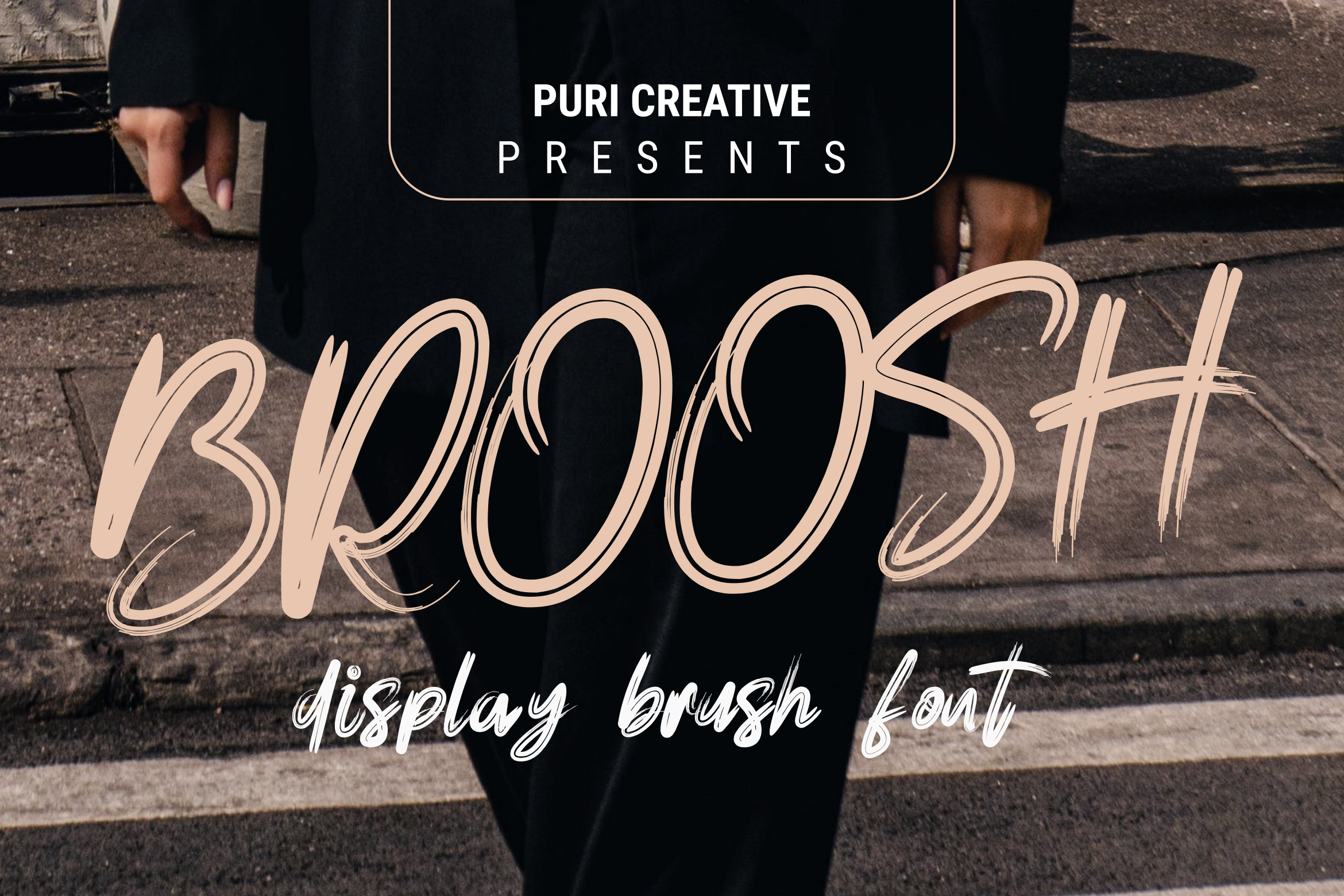
BROOSH - Display Brush Font
introducing our new font "BROOSH". A quick handwriting font, BROOSH made with a Brush Pen. BROOSH is a display brush Font which has many purpose and suitable for movie, movie poster, modern, poster, advertising and much more.